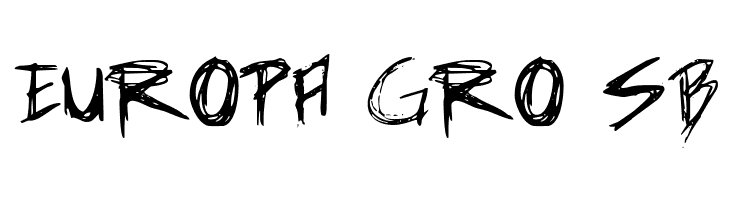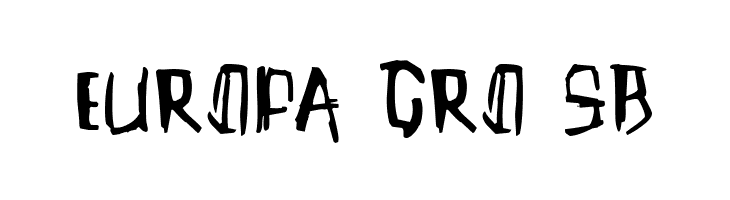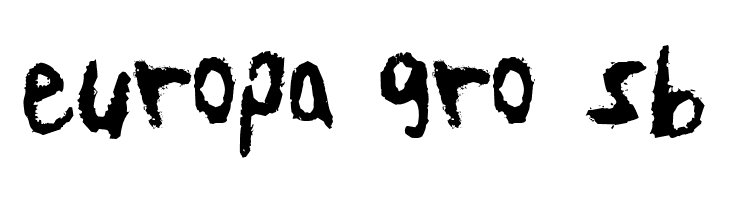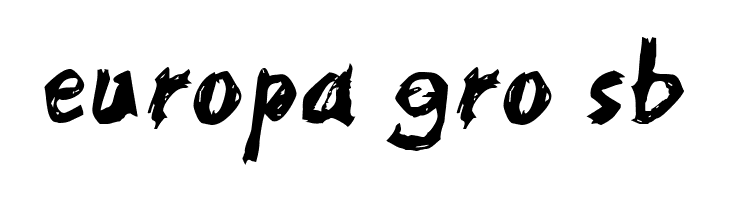
A bold, distressed font with a grungy, hand-drawn style.
A bold, hand-drawn font with dynamic, irregular strokes and an edgy style.
A bold, hand-drawn font with a rough, edgy style.
A bold, hand-drawn font with a rough, graffiti-like style.
A bold, grunge-style font with a hand-drawn, rebellious aesthetic.